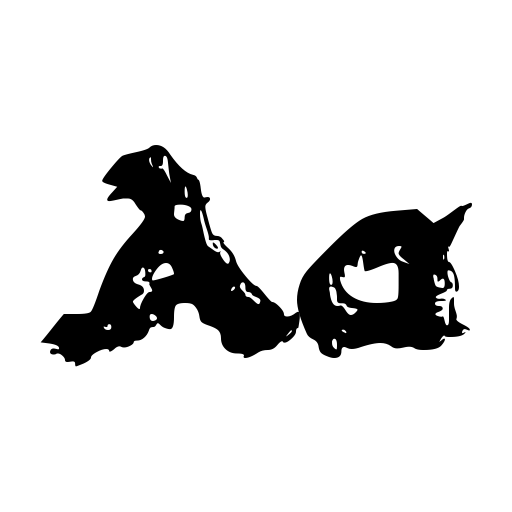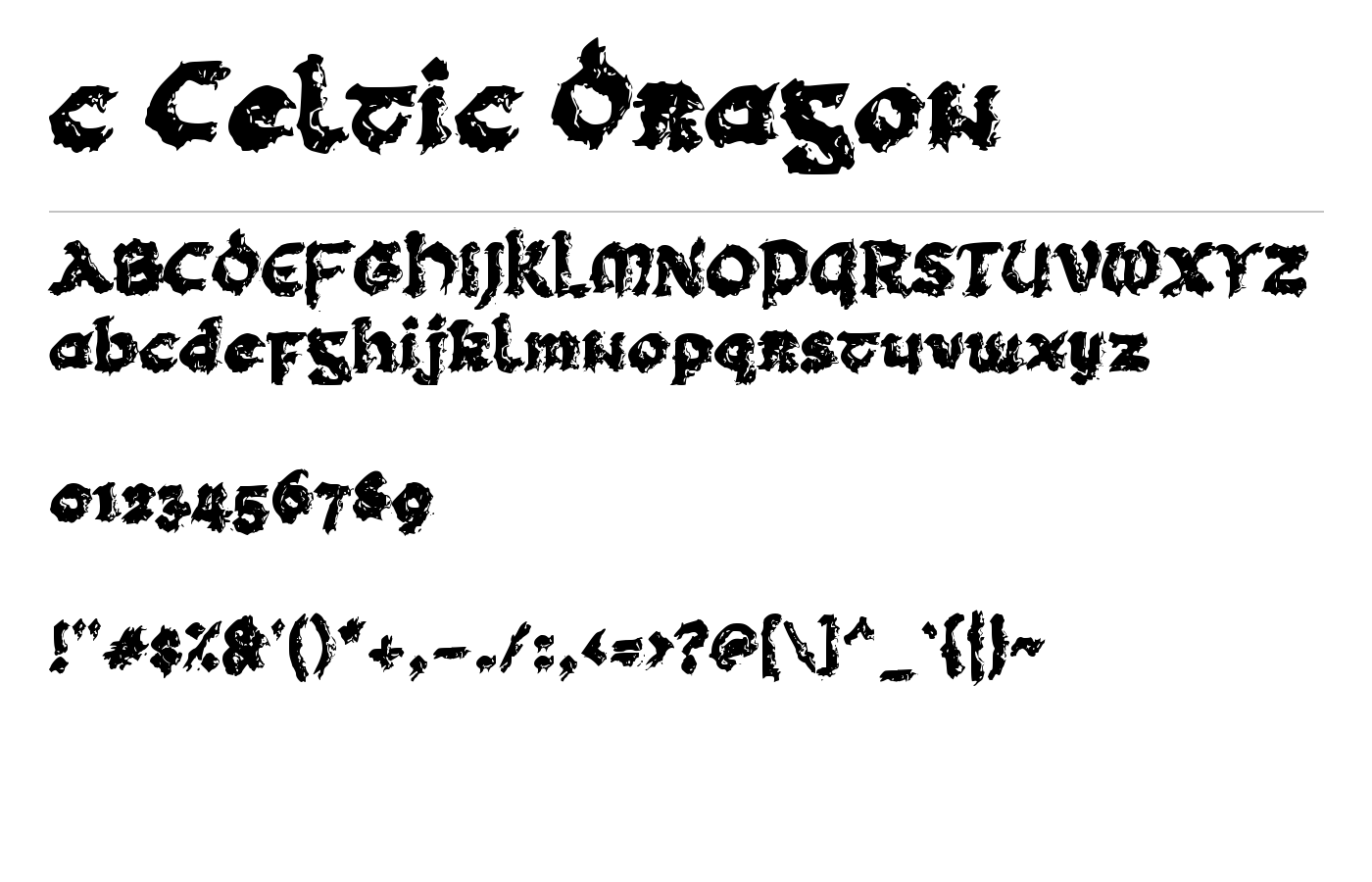
Celtic Dragon is a decorative, bold display font with a textured, distressed look that evokes a mystical and ancient feel. Its irregular, rugged letterforms with high contrast and rough edges create a dramatic and powerful presence, making it perfect for fantasy-themed designs, logos, posters, and creative projects that seek a strong, mythical vibe. This font works best in large sizes where its intricate details can be fully appreciated, adding a unique, adventurous touch to any visual branding.
c Celtic Dragon Font
About c Celtic Dragon Font